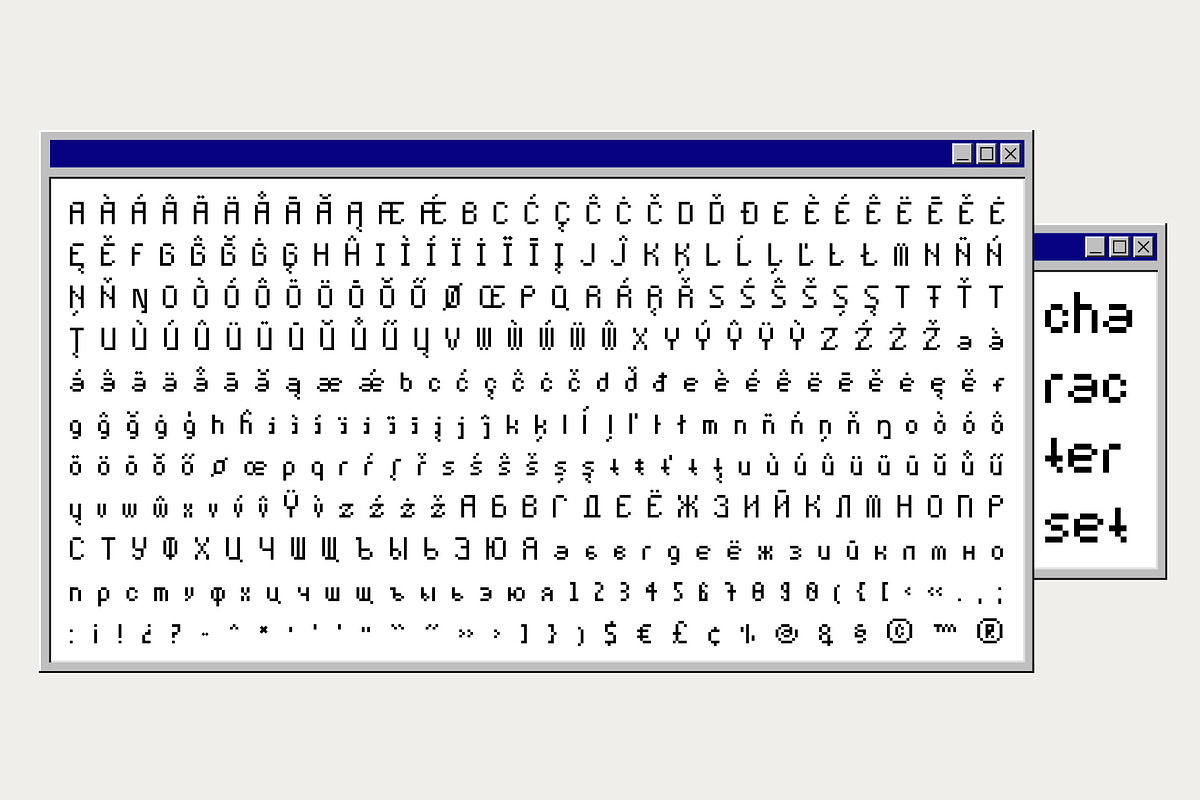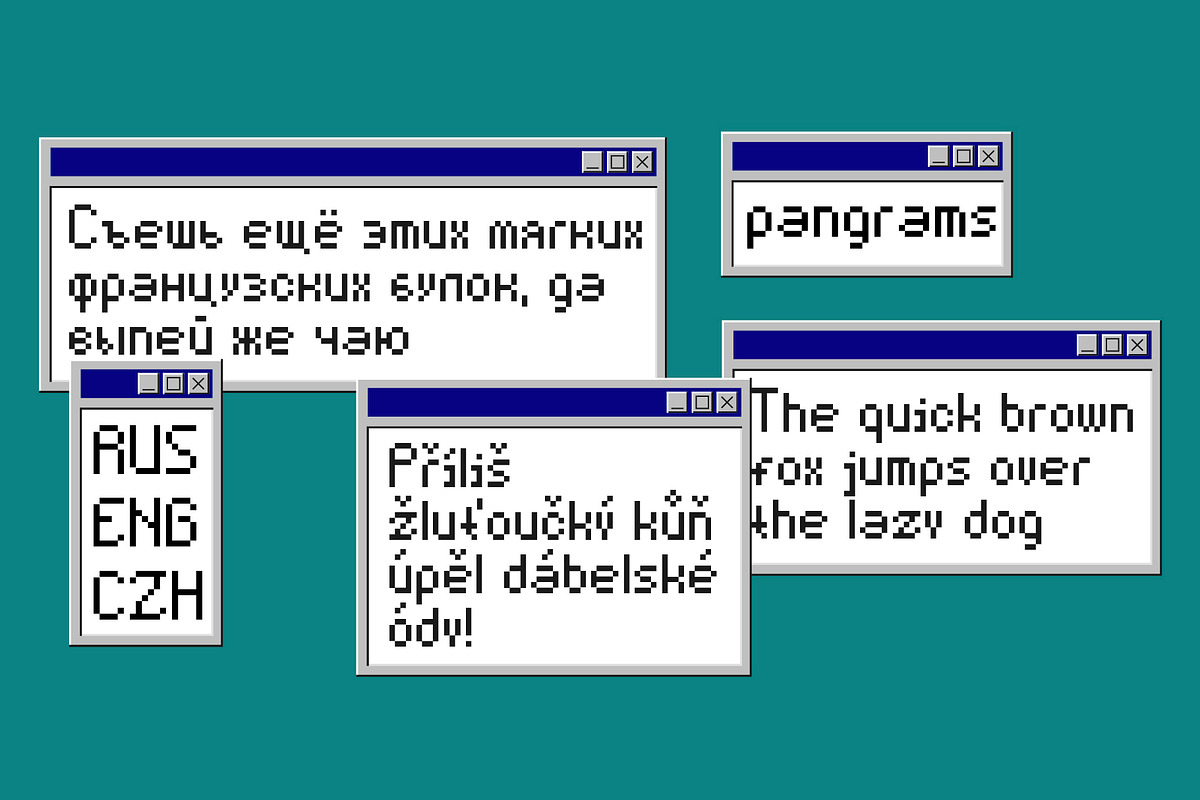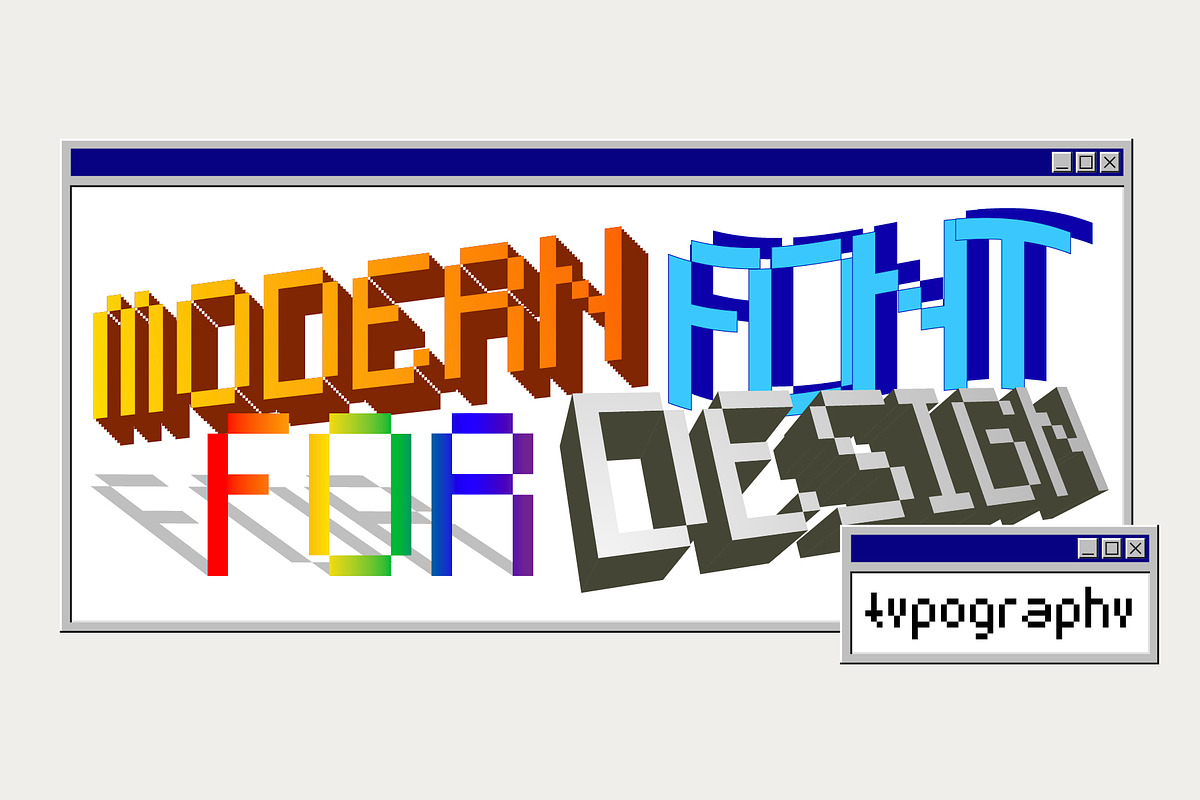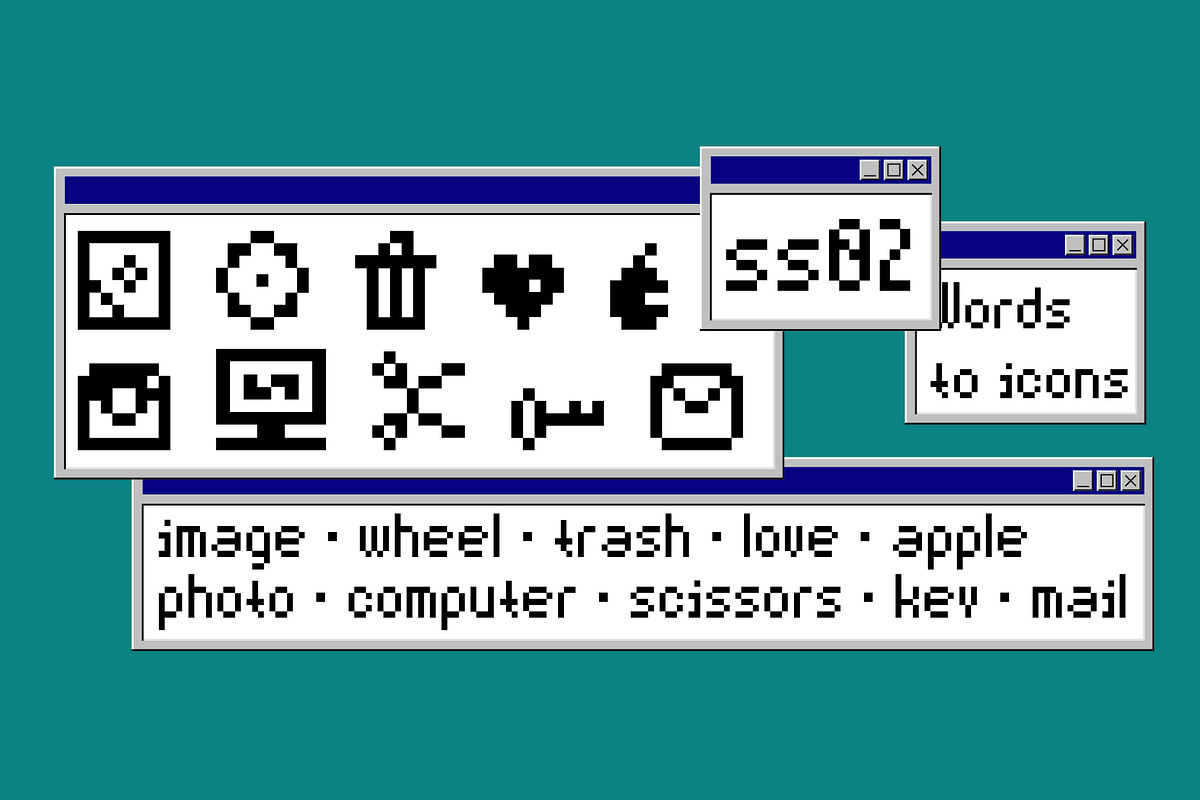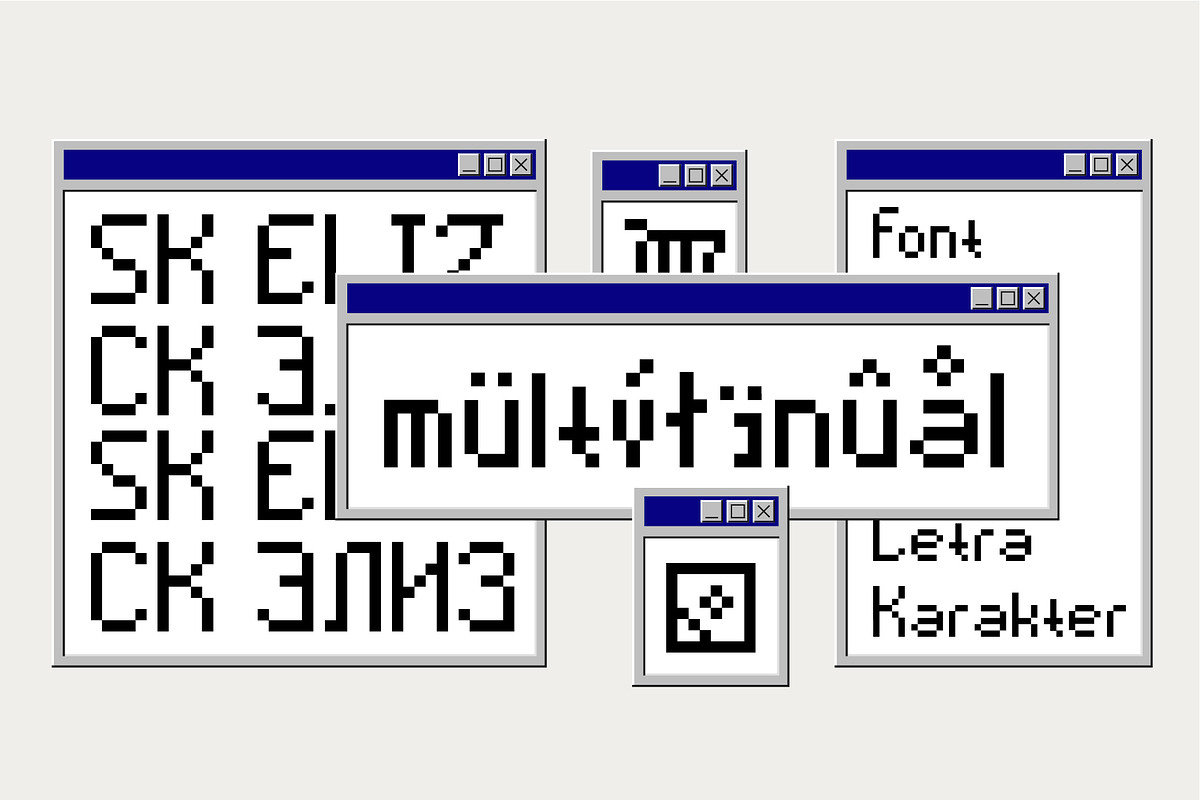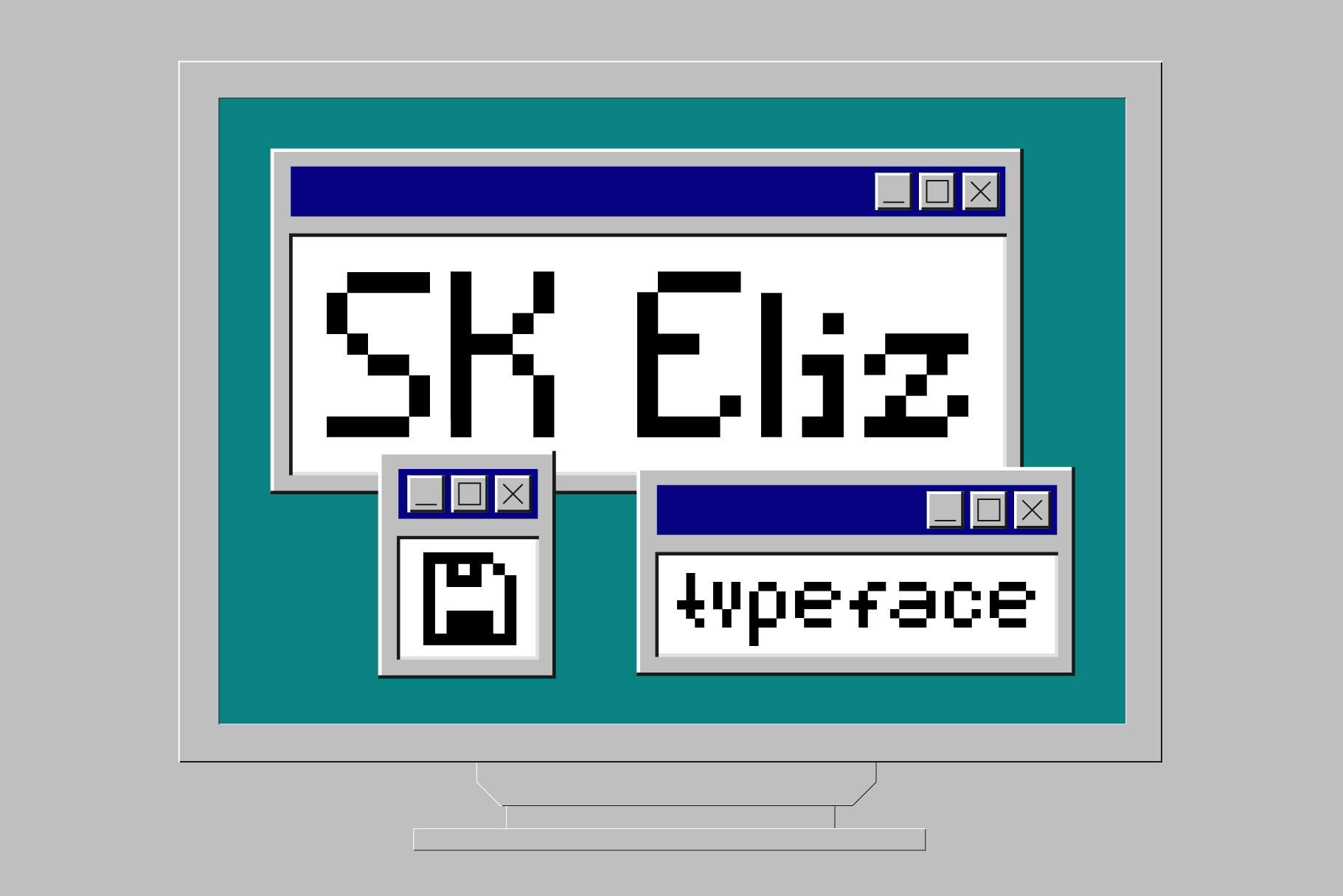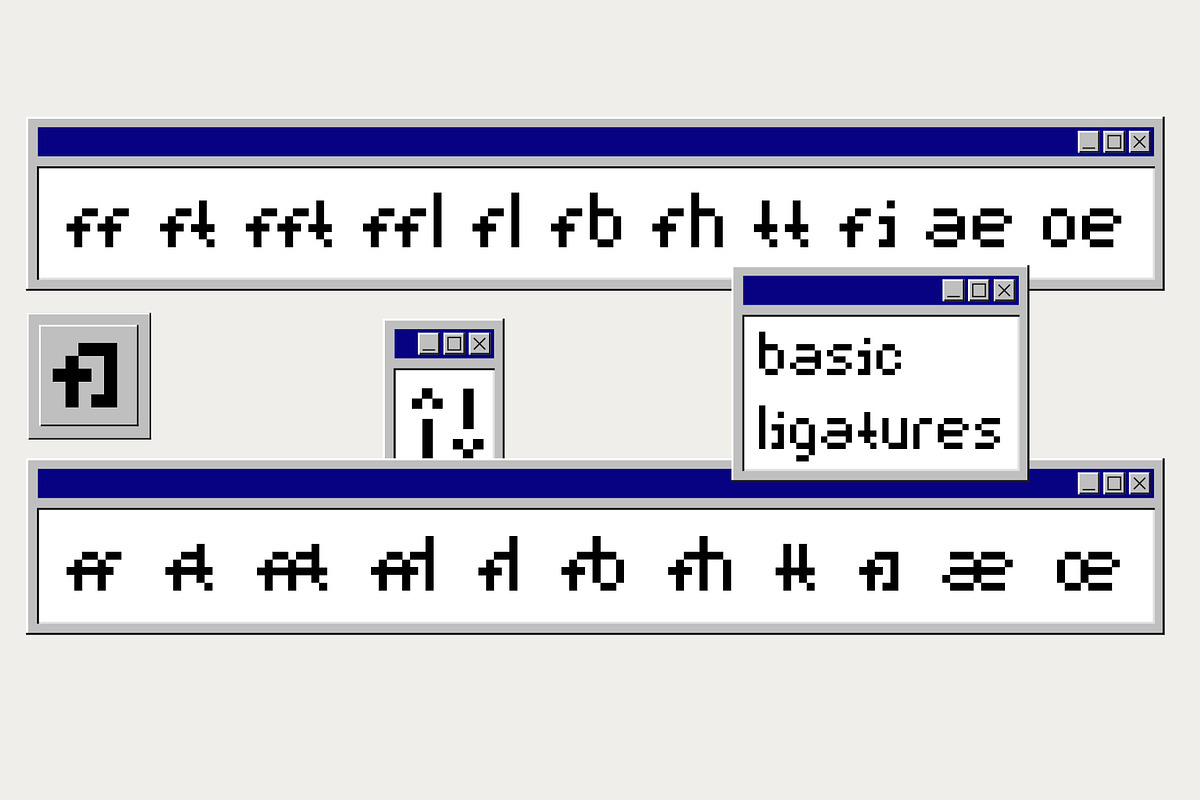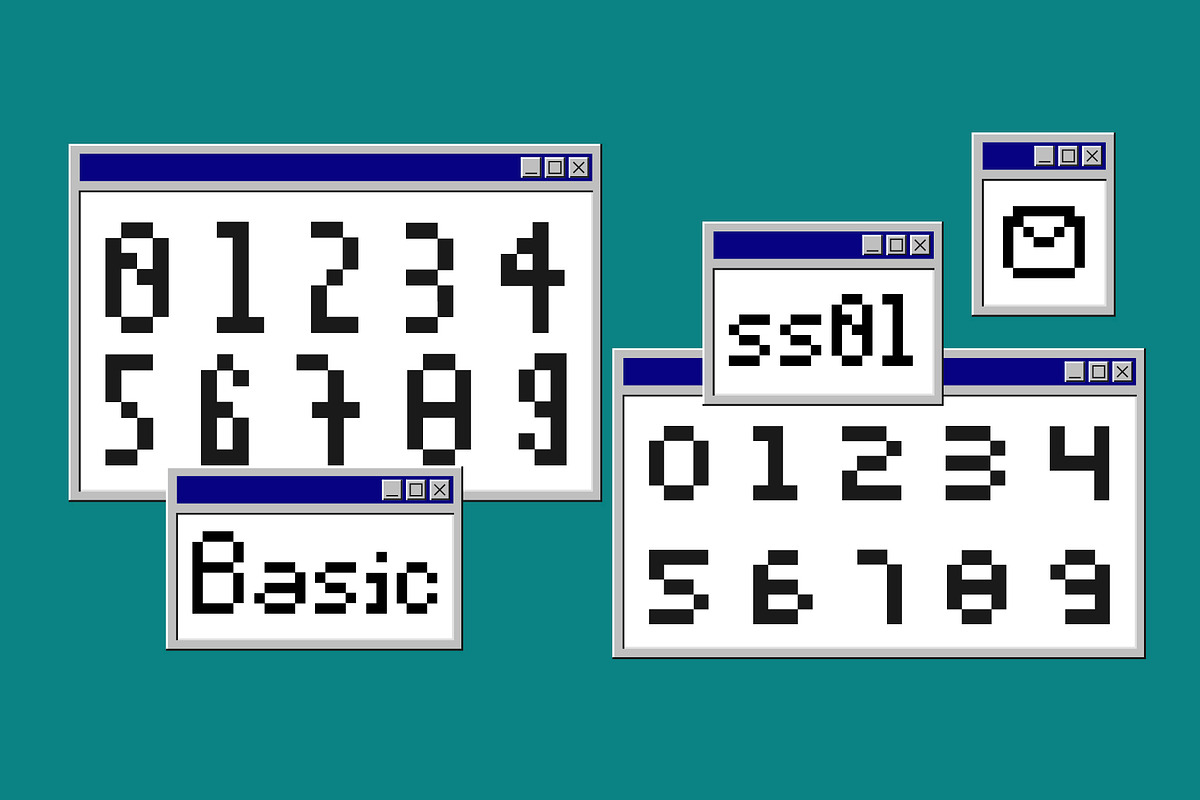
SK Eliz — Old School Font
SK Eliz is an eight-bit old-school geometric font based on pixels. Despite the old school, the font looks modern and simple. The font is built on a clear geometric grid, verified to the last pixel. It is ideal for design works in the old style, illustrations and for game design.
The font comes in one weight but it has 850 glyphs which supports classical Latin, Cyrillic and most European languages.